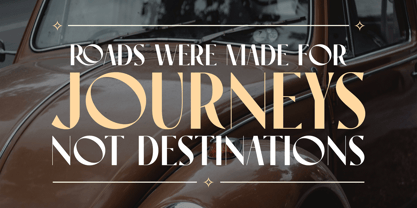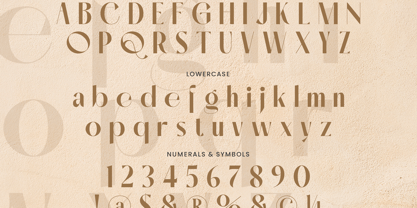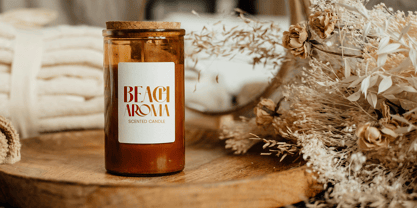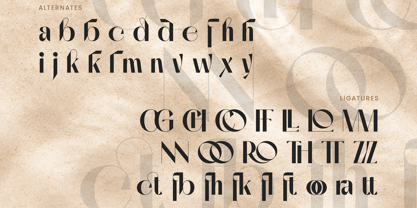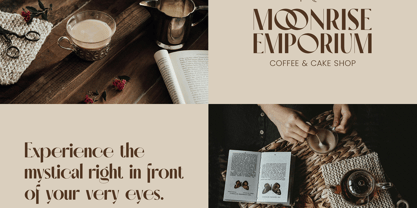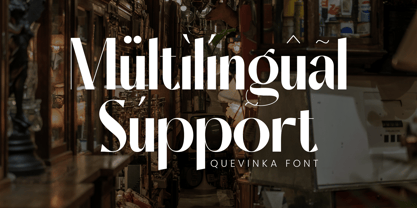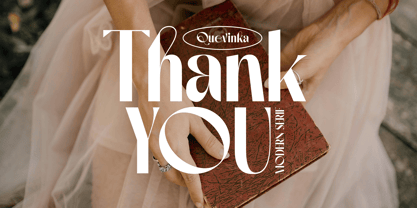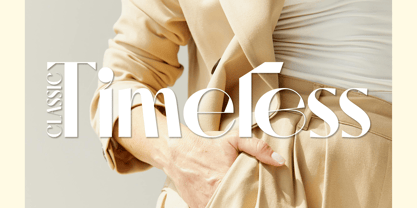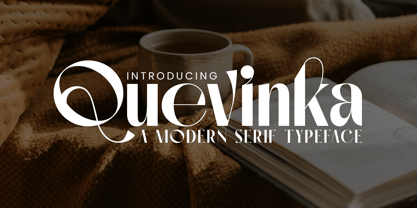
Quevinka
by Krafted
The Quevinka Font Family was designed by Heri Imanudin and published by Krafted. Quevinka contains 1 styles. More about this family
Meet Quevinka, a modern serif typeface with timeless elegance and bold personality.
Perfect for branding, editorials, logos, and high-end designs, Quevinka blends classic charm with a sleek, contemporary twist. Featuring stylish curves and strong contrast, it’s fully versatile and effortlessly chic, ideal for making a statement wherever your creativity takes you. Sophistication never looked so sharp.
Designers: Heri Imanudin
Foundry: Krafted